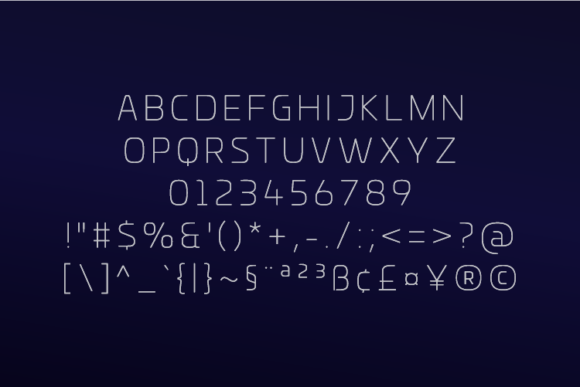
Introduction to Rushalna Font
Rushalna is a simple, neat sans serif font.
Suitable for a wide range of design projects, Rushalna can effortless become a true favorite .
Rushalna Font offers exceptional quality and versatility, making it a valuable addition to your design toolkit. Whether you’re creating for personal projects or commercial use, Rushalna Font delivers professional results.